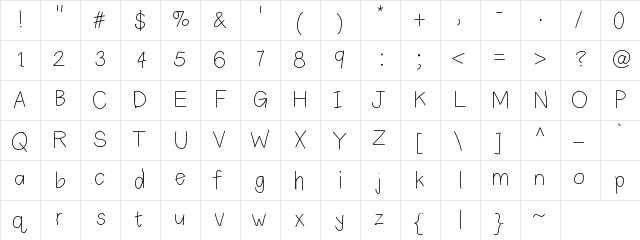
PlainPrint Medium Free Font
PlainPrint Medium
Design Context for PlainPrint
PlainPrint is a composed and adaptable typeface that performs quietly and consistently across a wide range of design contexts.